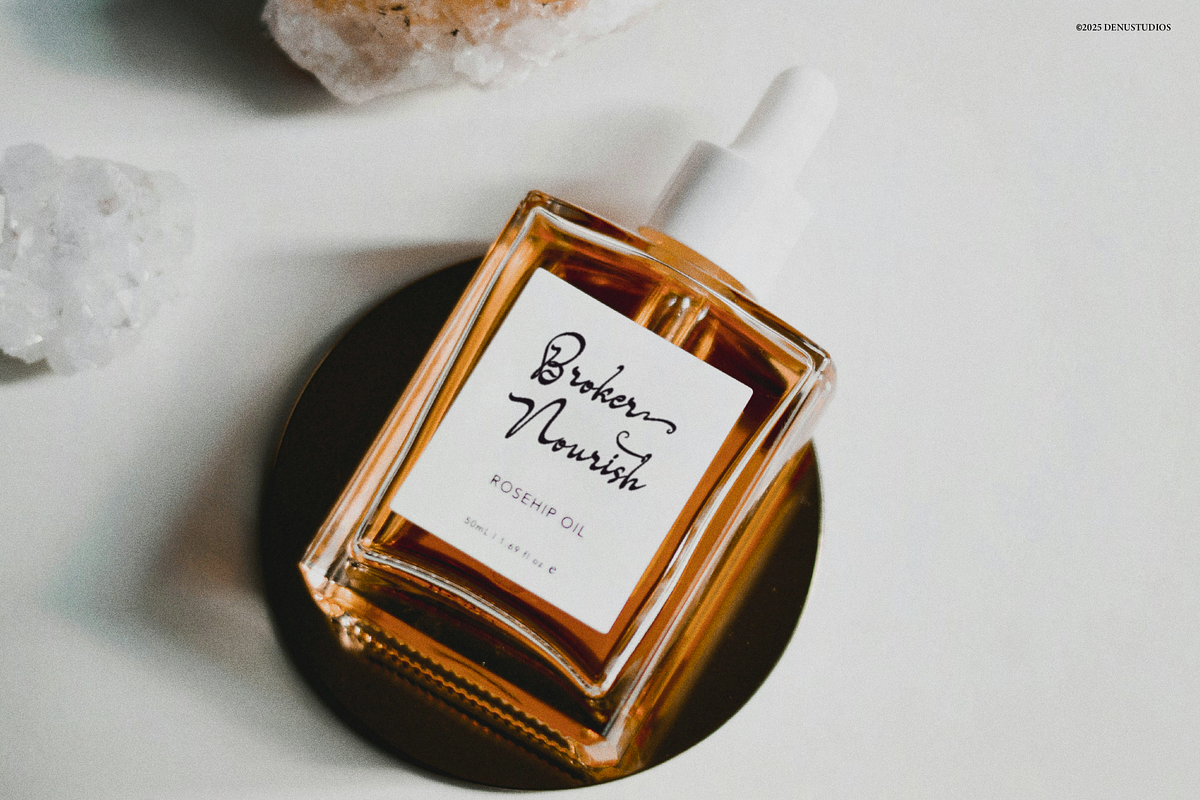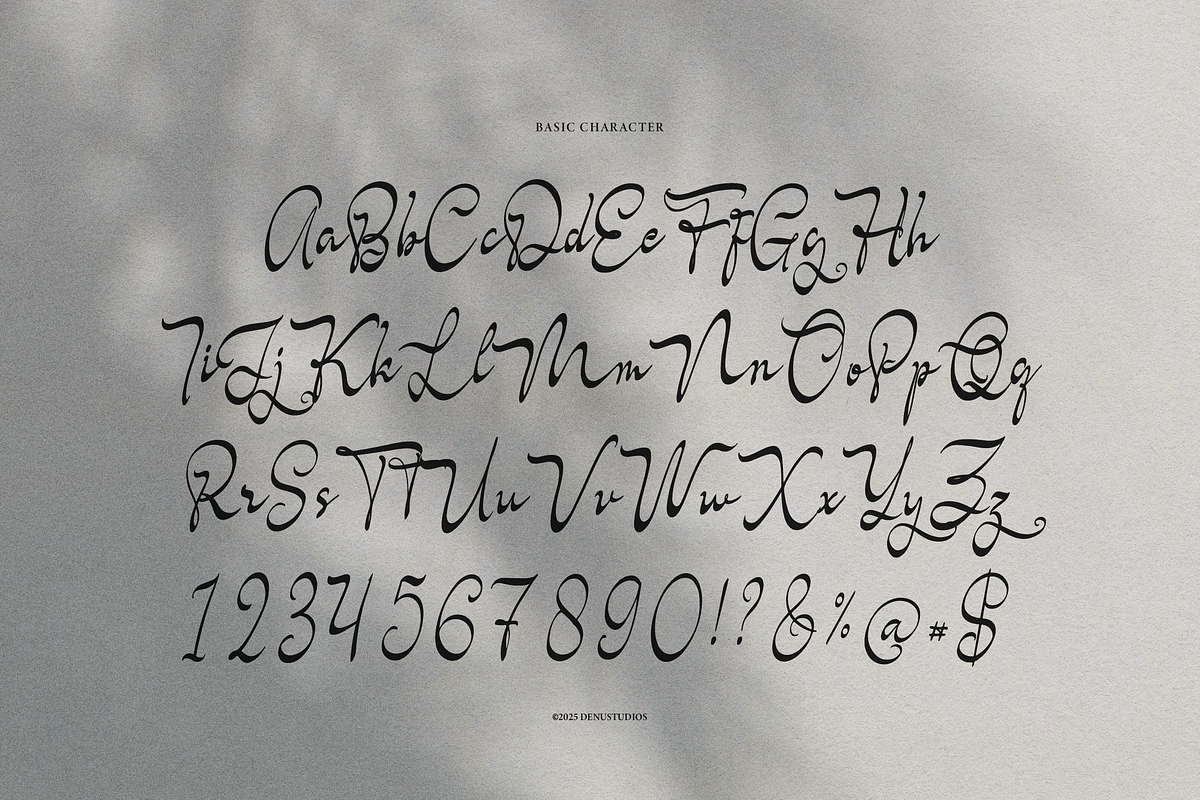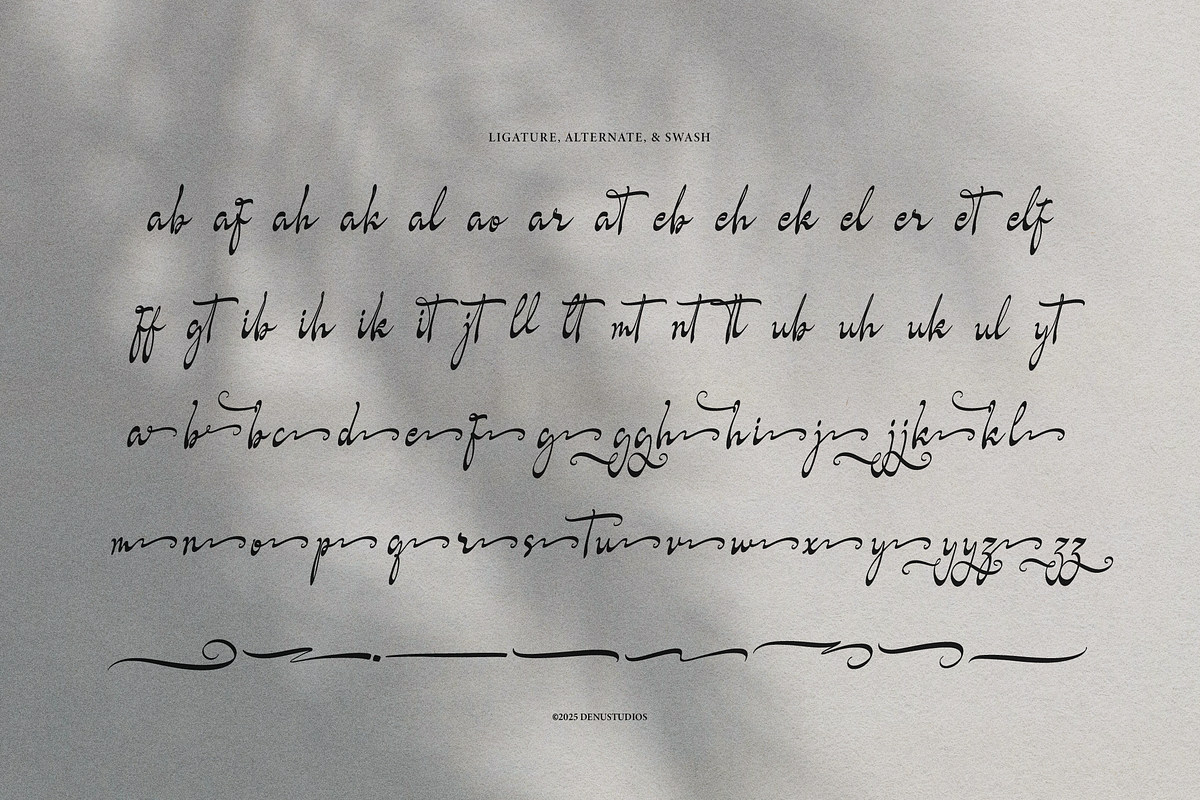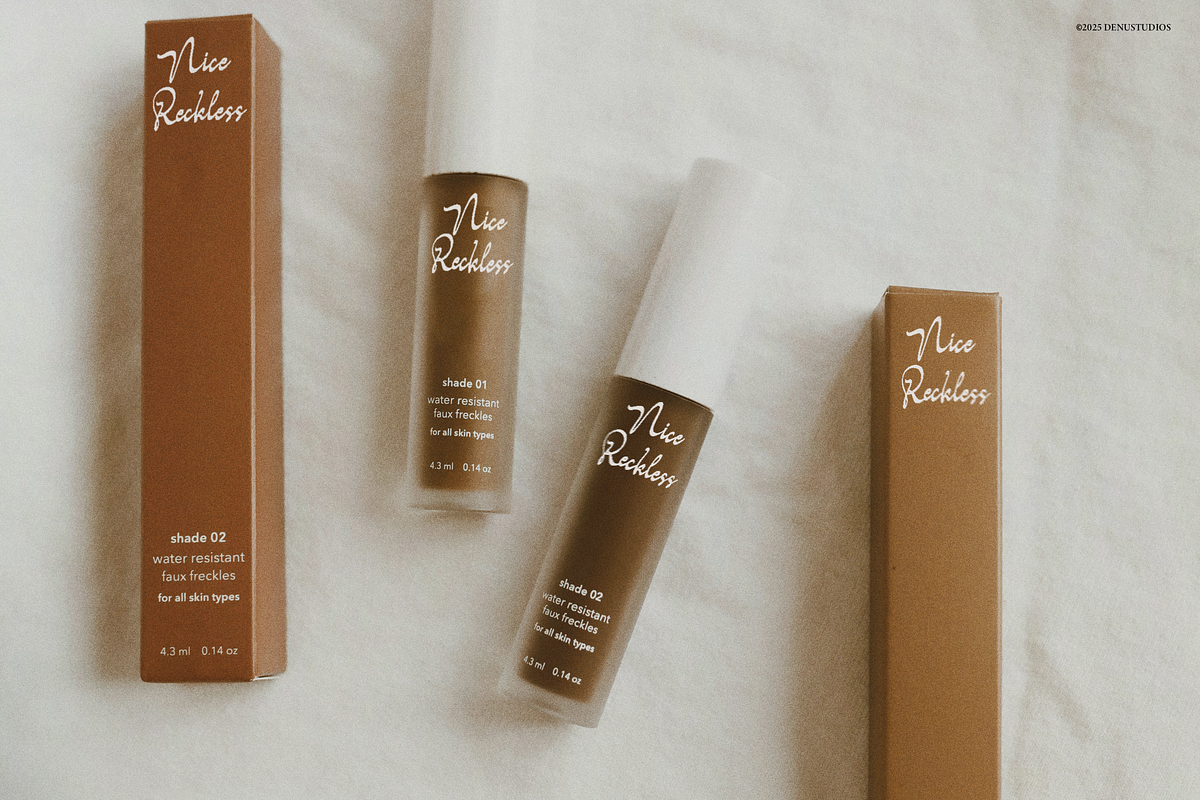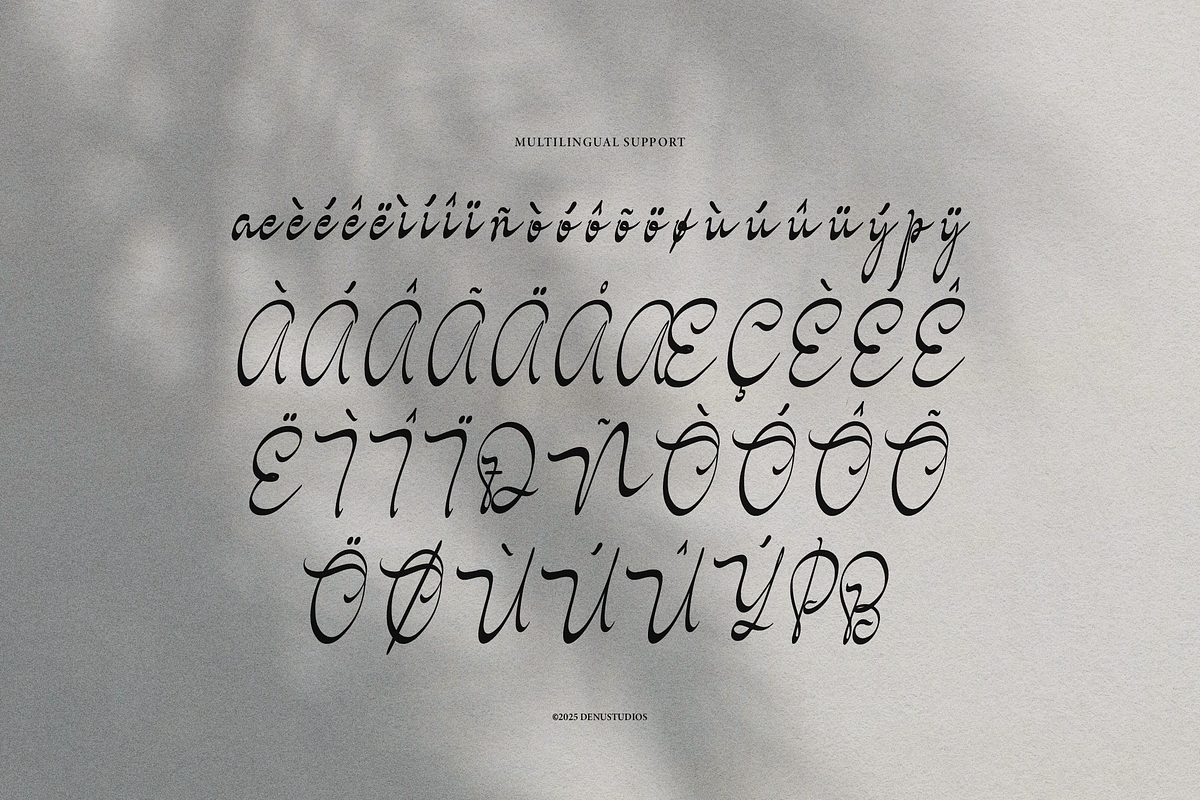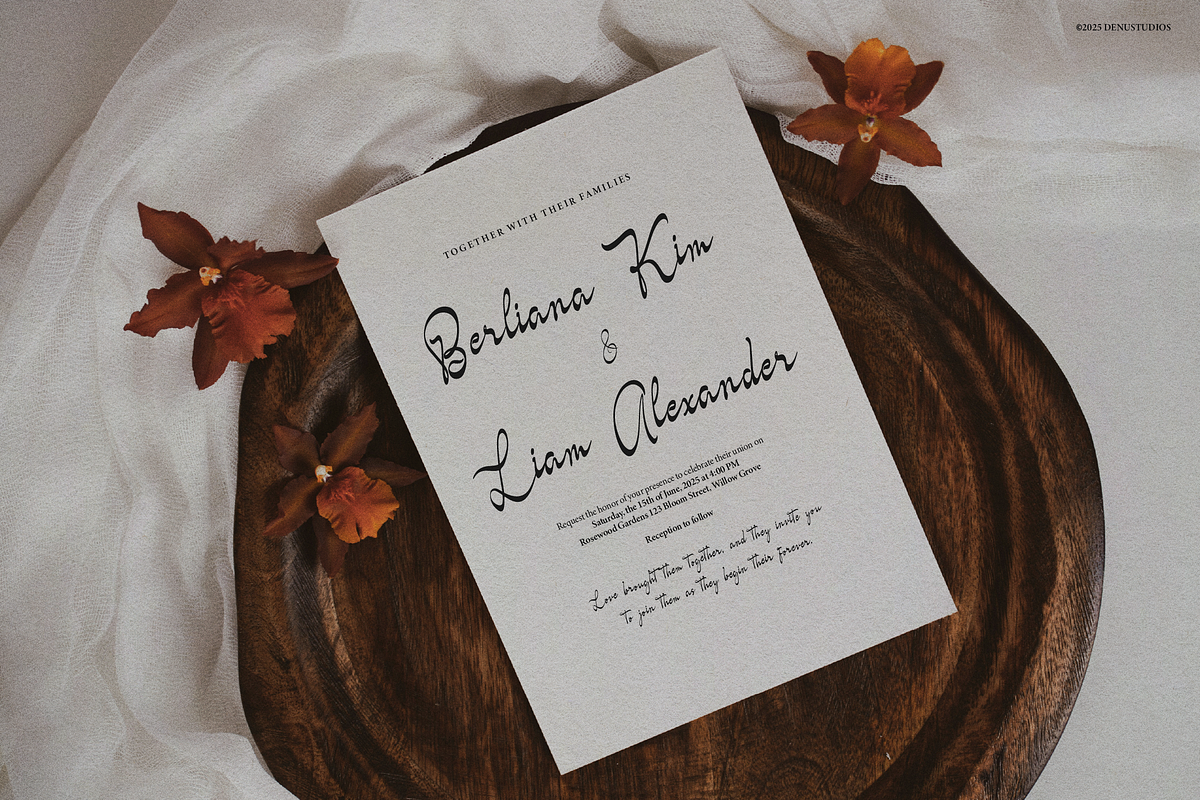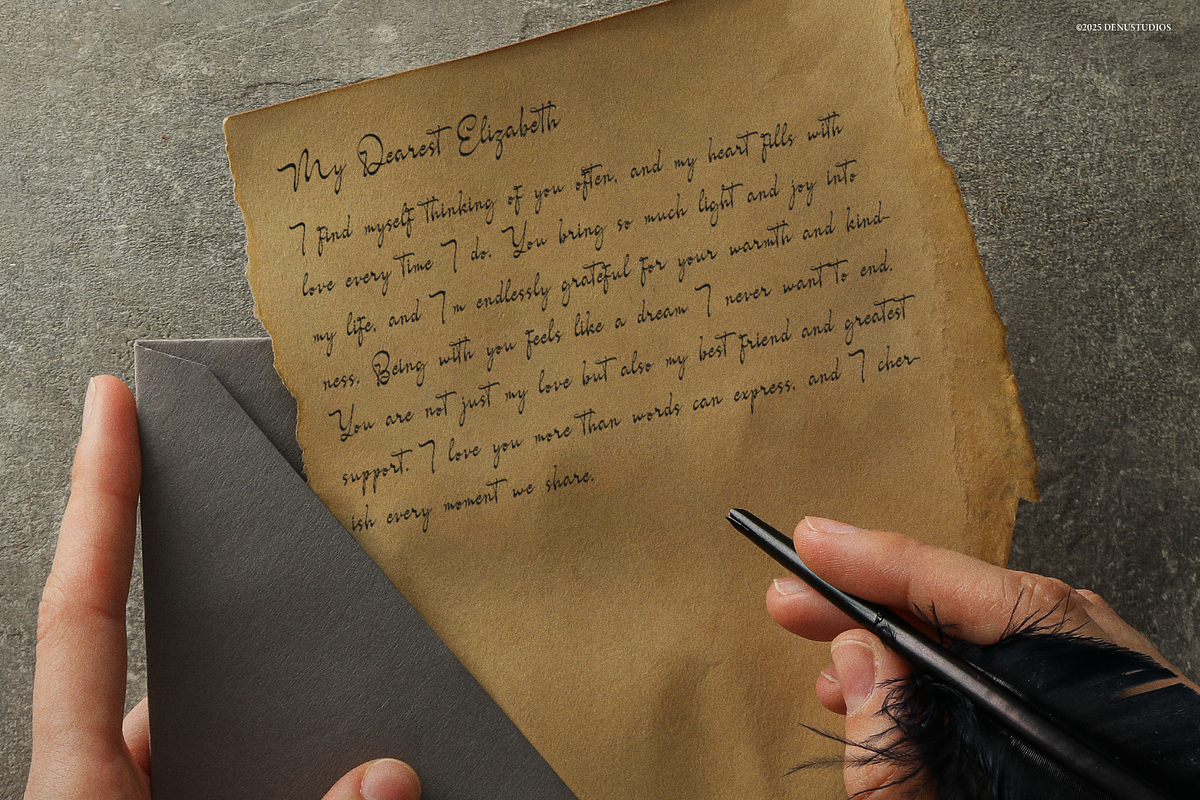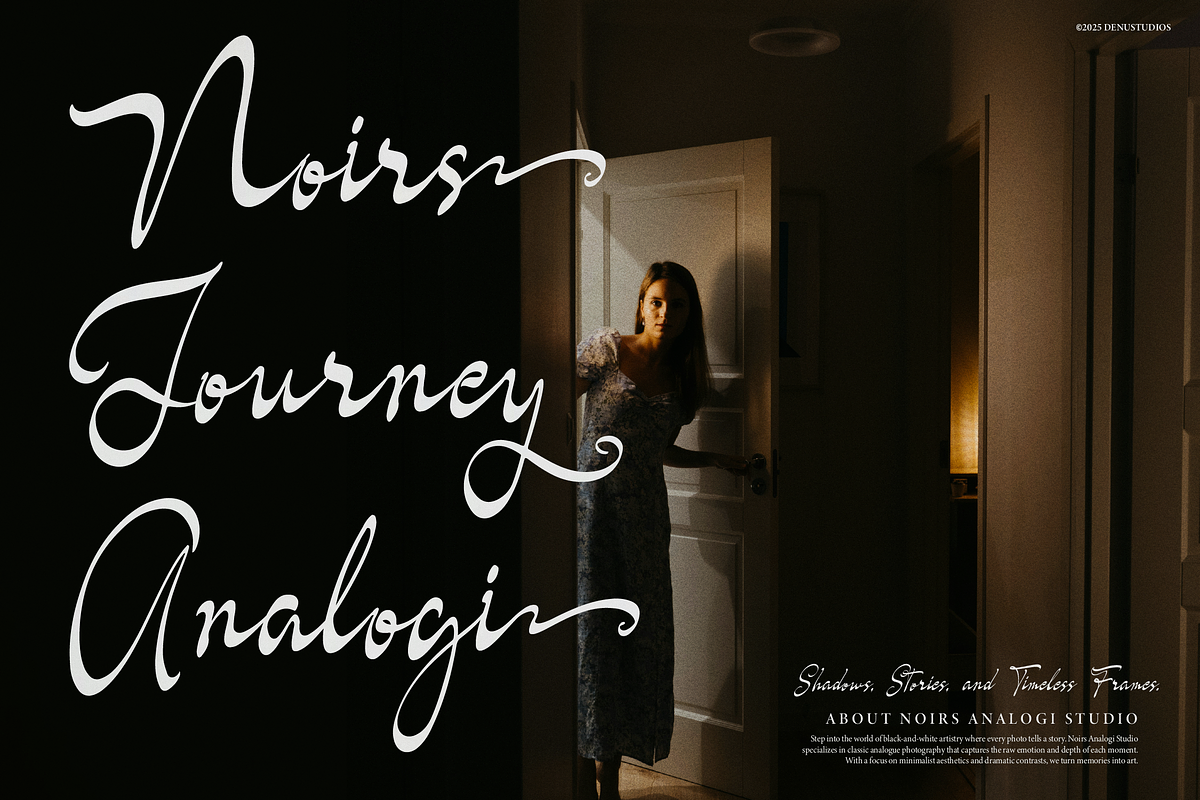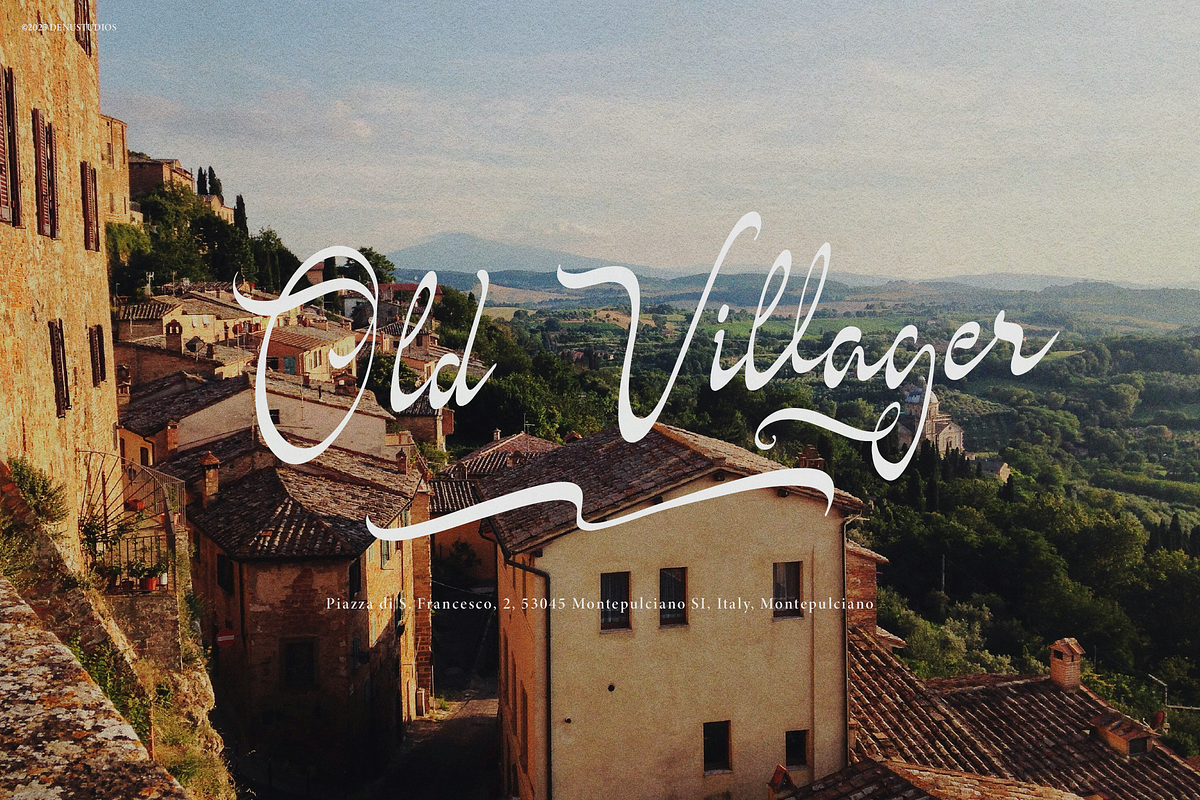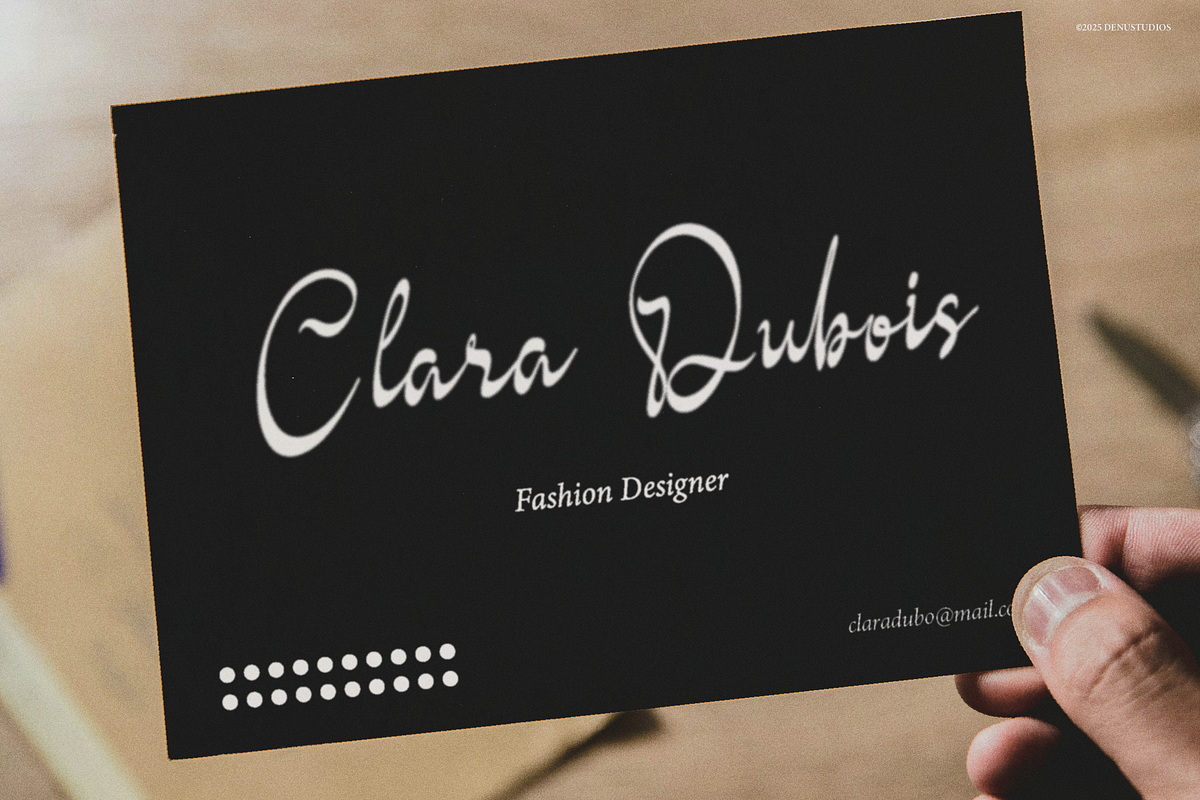
Feriska Monathy | Classic Signature
Feriska Monathy | Classic Signature Font, from Denustudios, suitable for any projects such as: logos, branding projects, homeware designs, product packaging, mugs, quotes, posters, shopping bags, t-shirts, book covers, name card, invitation cards, greeting cards, label, photography, watermark, special events, and all your other lovely projects that need a Classic Signature Font taste.